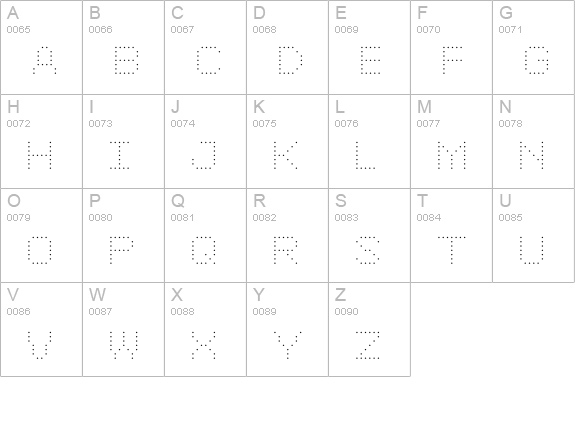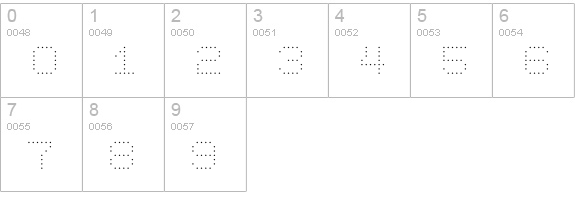
6x7oct ExtraLight is an airy, ultra-refined variant in the 6x7oct typeface family \xE2\x80\x94 well suited to minimalist headlines and refined display use.
The 6x7oct ExtraLight font is a sleek and modern typeface that exudes elegance and sophistication. Its delicate and airy design makes it perfect for adding a touch of refinement to any project. The ExtraLight weight of this font gives it a unique and ethereal quality, making it ideal for creating a sense of lightness and grace in your designs. This font is freely available to download at FontsMarket.com, making it easily accessible for all your creative needs. Whether you're designing a website, creating a logo, or crafting a beautiful invitation, the 6x7oct ExtraLight font will elevate your project with its understated beauty and timeless appeal. Don't miss out on this stunning font that will effortlessly enhance your designs.